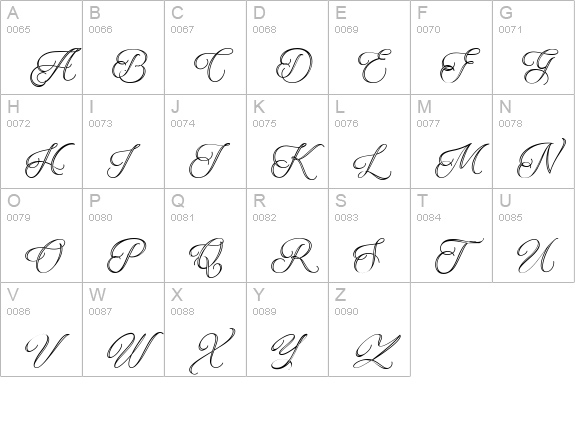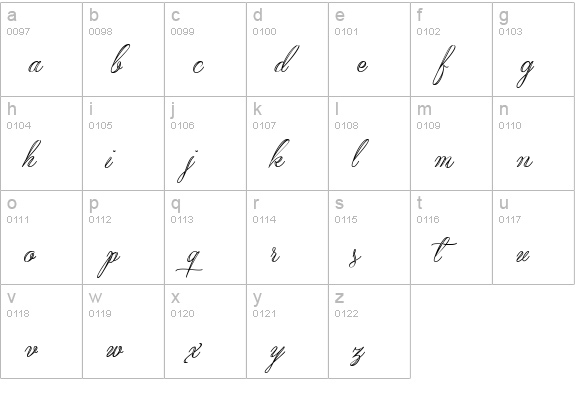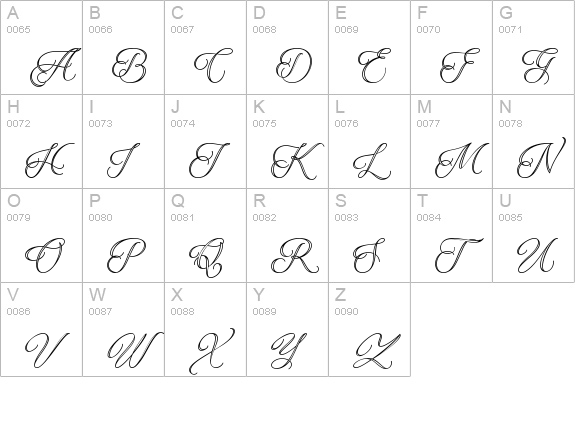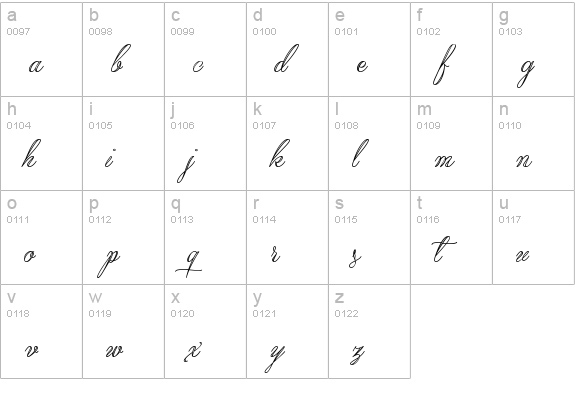
Qaskin White Personal Use Font Details
Qaskin White Personal Use font is an elegant and sophisticated typeface that exudes a timeless beauty. Its delicate and flowing strokes add a touch of grace and elegance to any design project. With its refined curves and intricate details, this font is perfect for creating stunning wedding invitations, branding materials, or any other project that requires a touch of sophistication. What makes Qaskin White Personal Use font even more desirable is that it is available for free! Yes, you read that right. This beautiful font can be downloaded at no cost from FontsMarket.com. Whether you are a professional designer or a creative enthusiast, you can now access this exquisite font without breaking the bank. With its generous availability and versatility, Qaskin White Personal Use font is a true gem for any designer. Its wide range of characters and ligatures allow for endless creative possibilities, ensuring that your designs will stand out from the crowd. The font's legibility and readability also make it a practical choice for various projects, whether it's a headline, body text, or even a logo. Qaskin White Personal Use font is a true testament to the power of typography in elevating the visual impact of any design. Its timeless and sophisticated style is sure to captivate the attention of viewers and leave a lasting impression. So why wait? Head over to FontsMarket.com to download this stunning font for free and let your creativity soar.